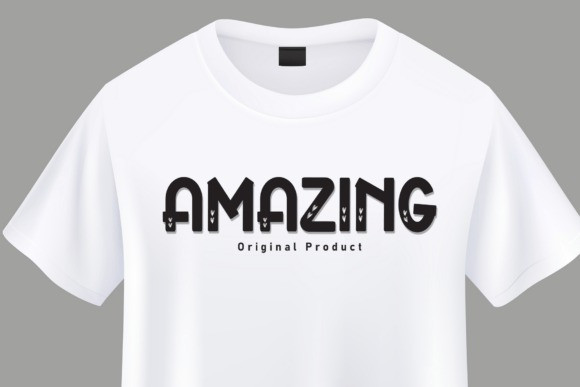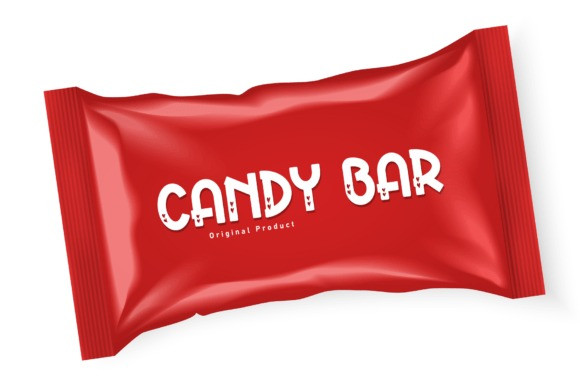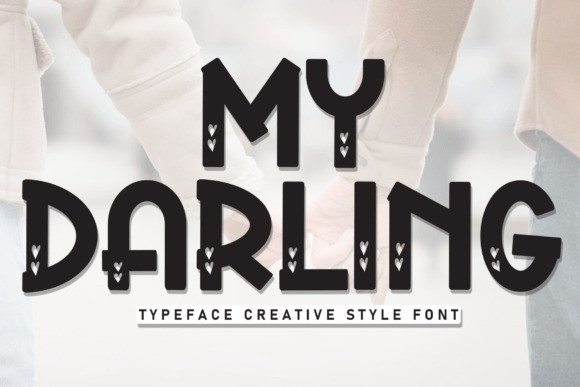
My Darling Font
My Darling Font Blending cuteness and fun, this font brings to life any design, making it the perfect choice for crafting wedding invitations, greeting cards, or adding a splash of whimsy to any creative project!